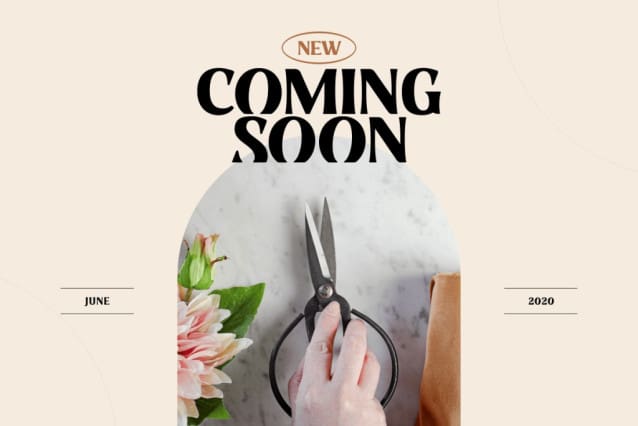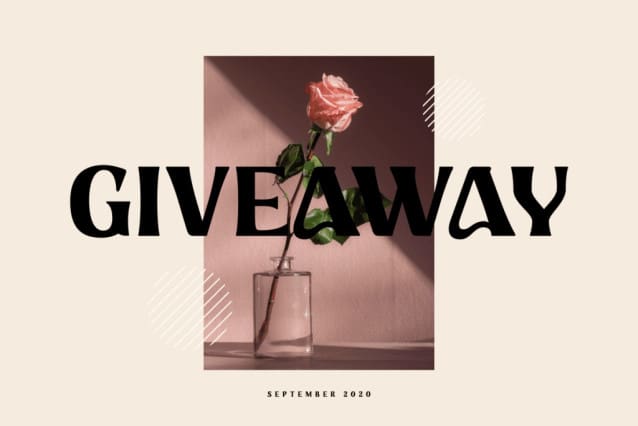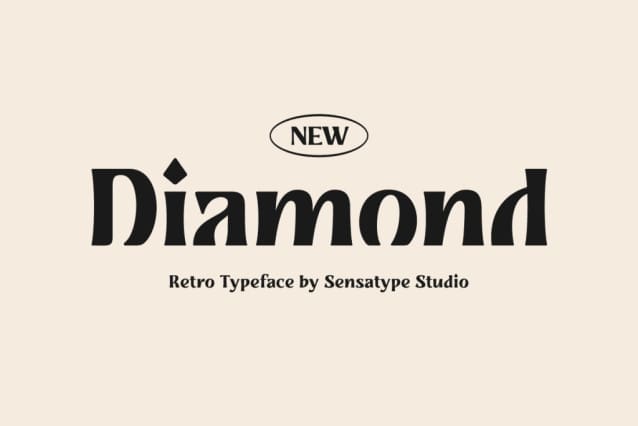
Diamond Retro Font
Diamond Retro Font is an old-style, retro, unique, and versatile vintage typeface with Special character ready for branding and stand out. It is a display typeface with a unique curve that perfect for branding projects, logo, wedding designs, social media posts, advertisements, product packaging, product designs, label, photography, watermark, invitation, stationery, and any projects, it makes with a high level of legibility.